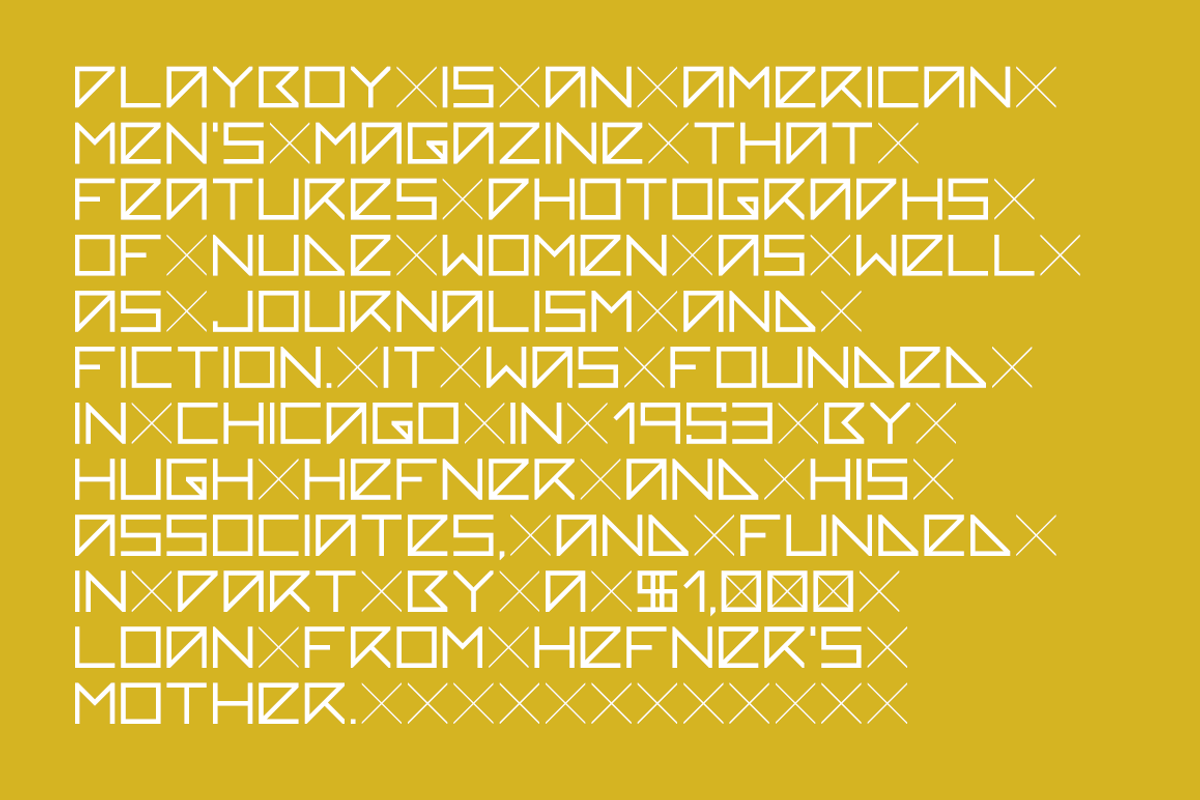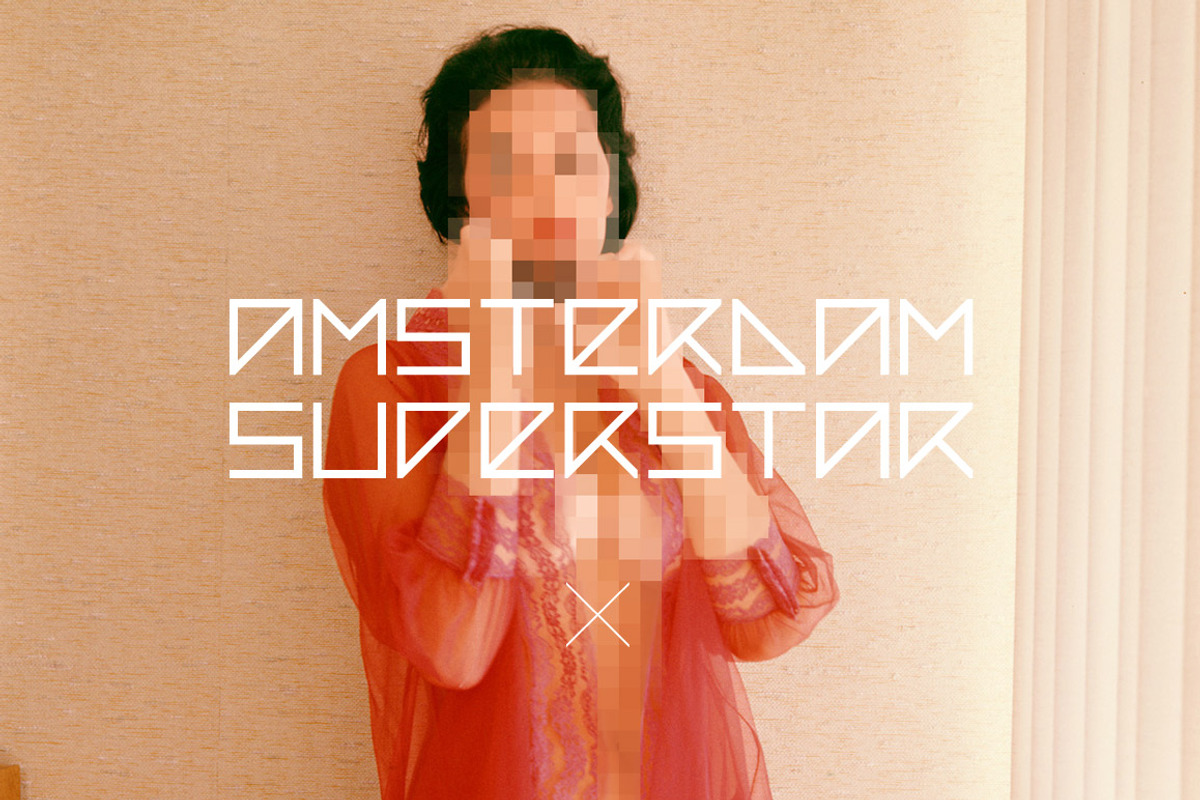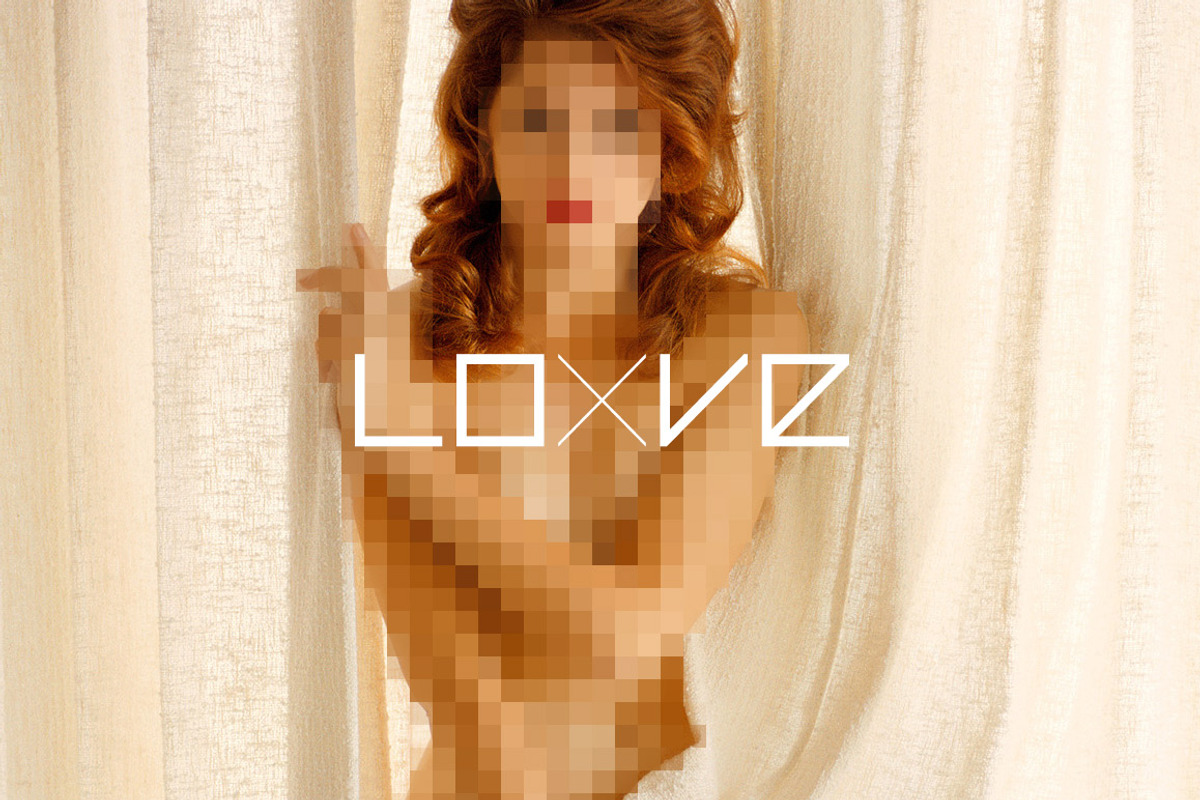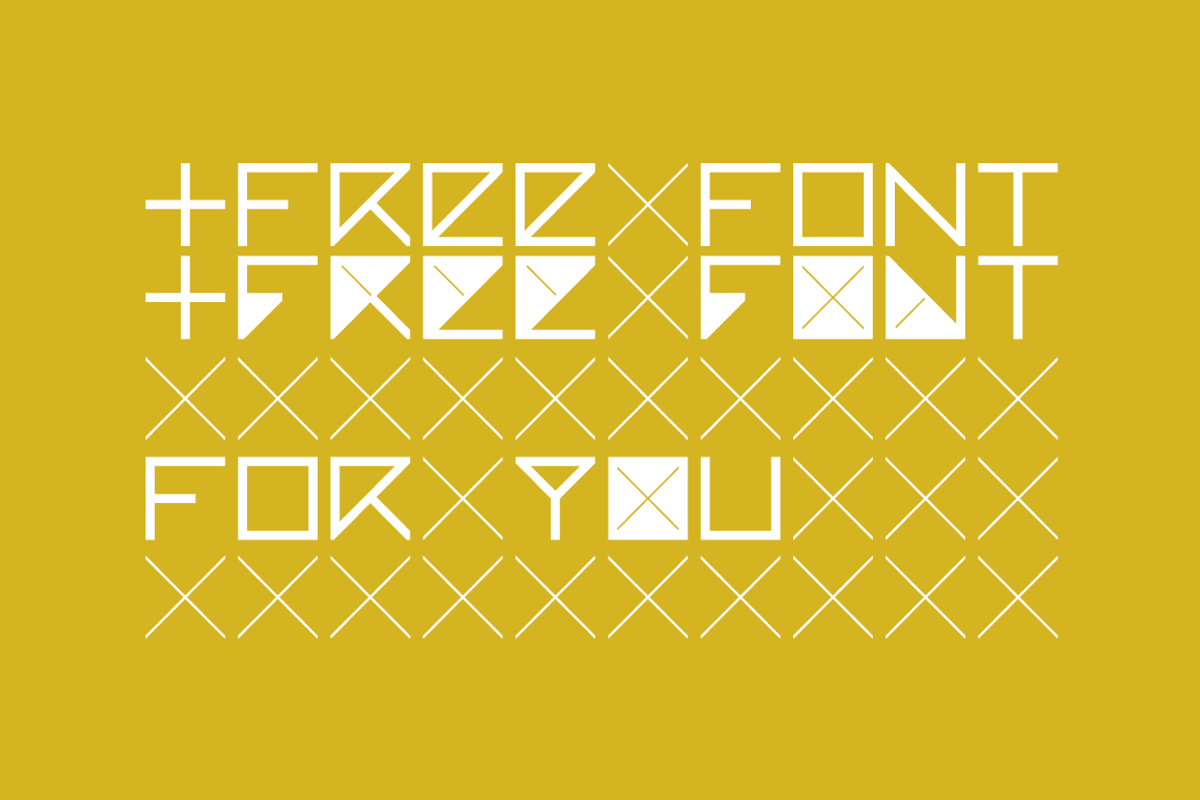
Amsterdam Superstar - font.
Amsterdam Superstar - font. by David is Creative is a font selected for branding, posters, packaging, typography.
- A square display font with cross and alternative uppercase.
Why Amsterdam Superstar - font. is worth a look
Amsterdam Superstar - font. by David is Creative fits naturally into Branding, posters, packaging, typography.